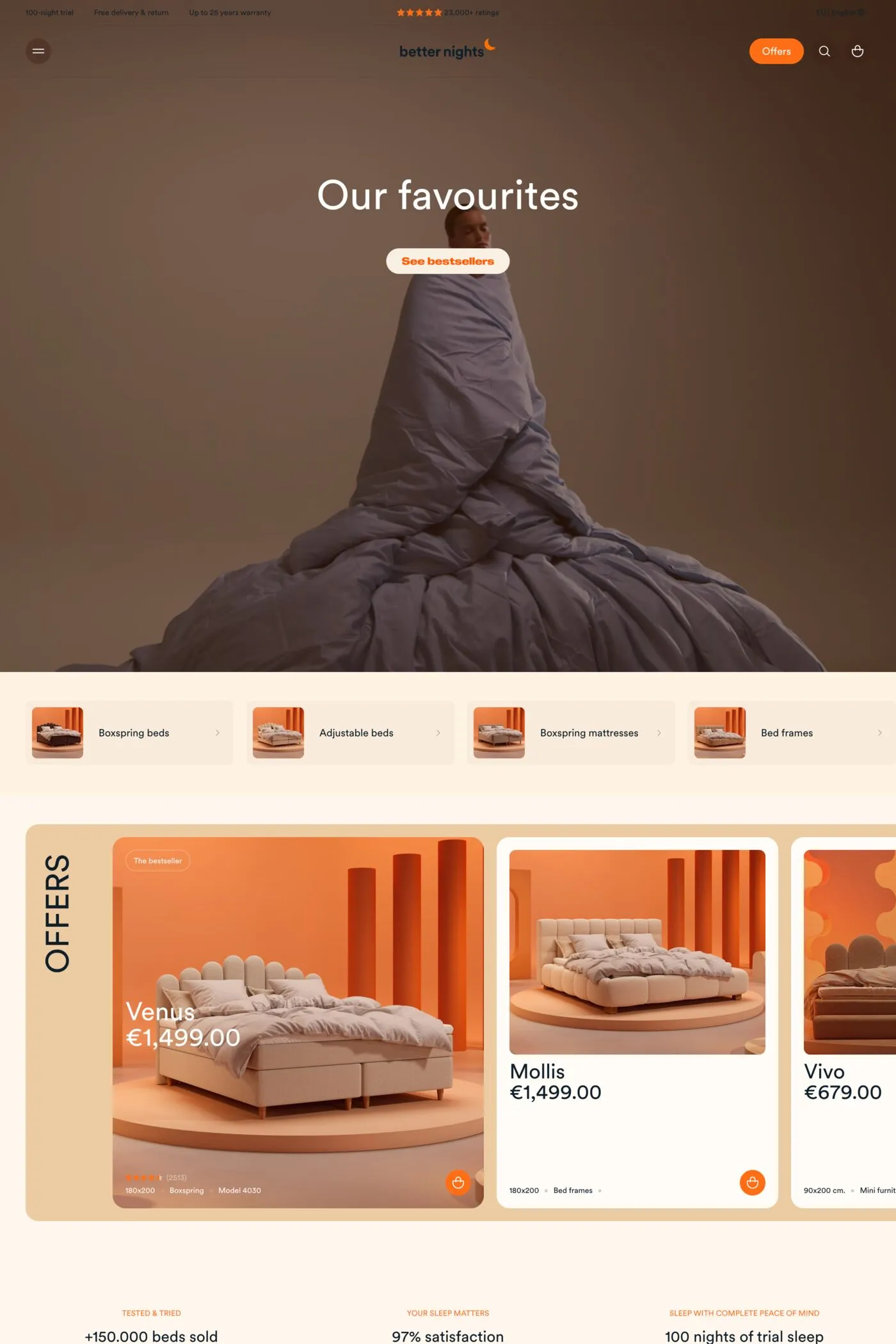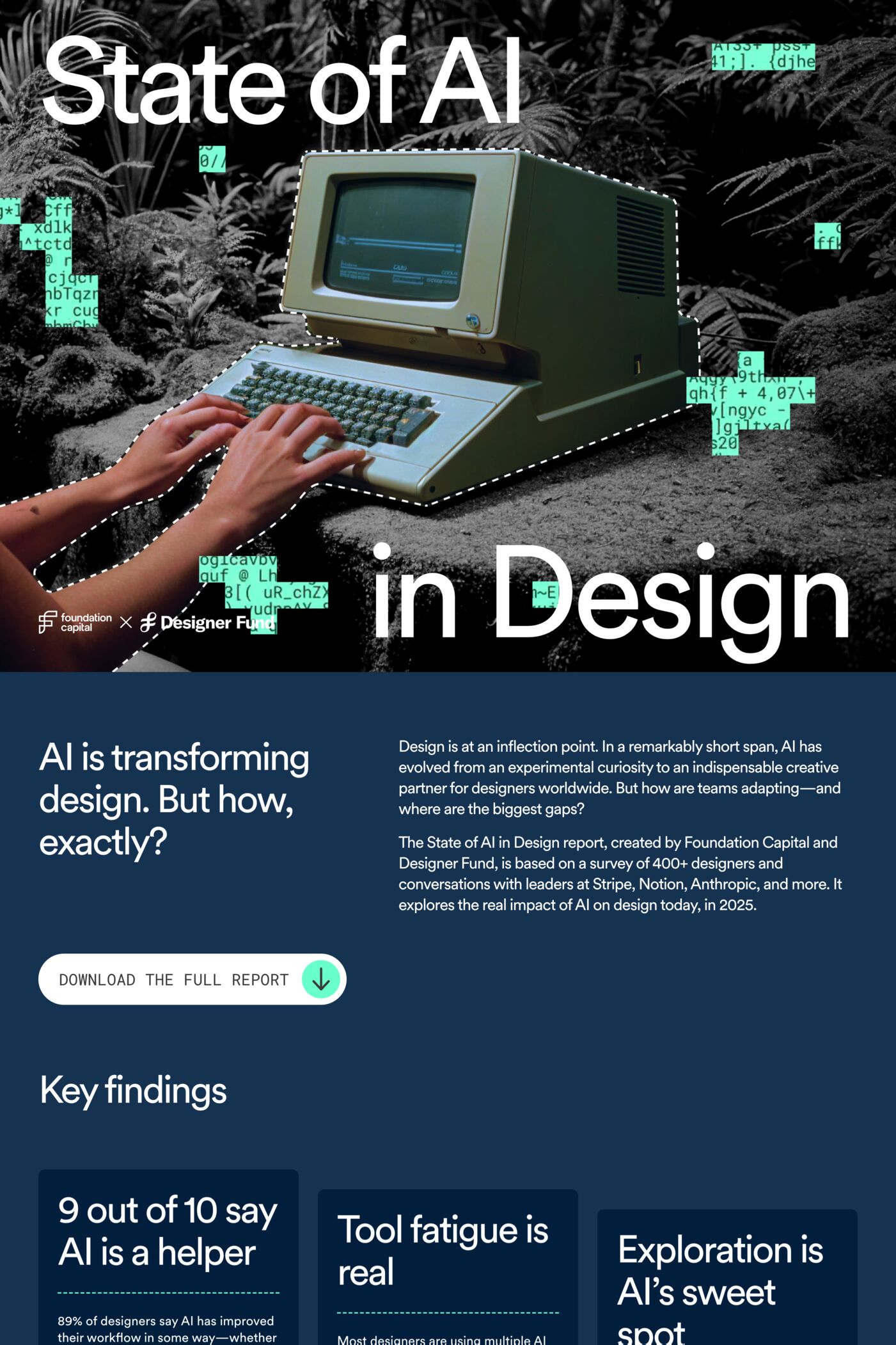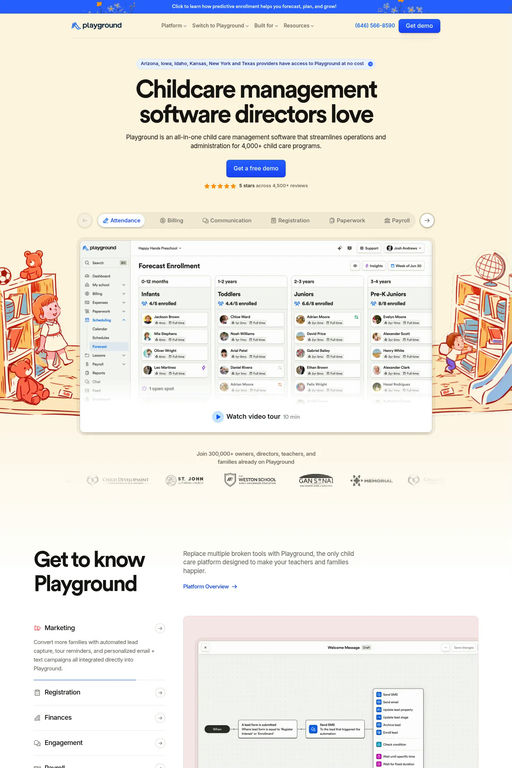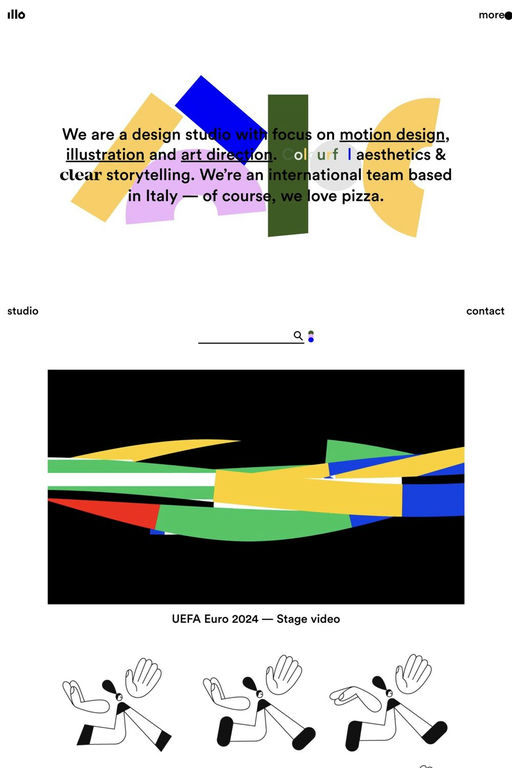
Circular is a sans-serif typeface from Lineto.
LL Circular is a geometric sans-serif font family in eight weights. It is Laurenz Brunner’s second official release after the critically acclaimed, immensely popular LL Akkurat. LL Circular offers a fresh take on the genre of the geometric grotesk.